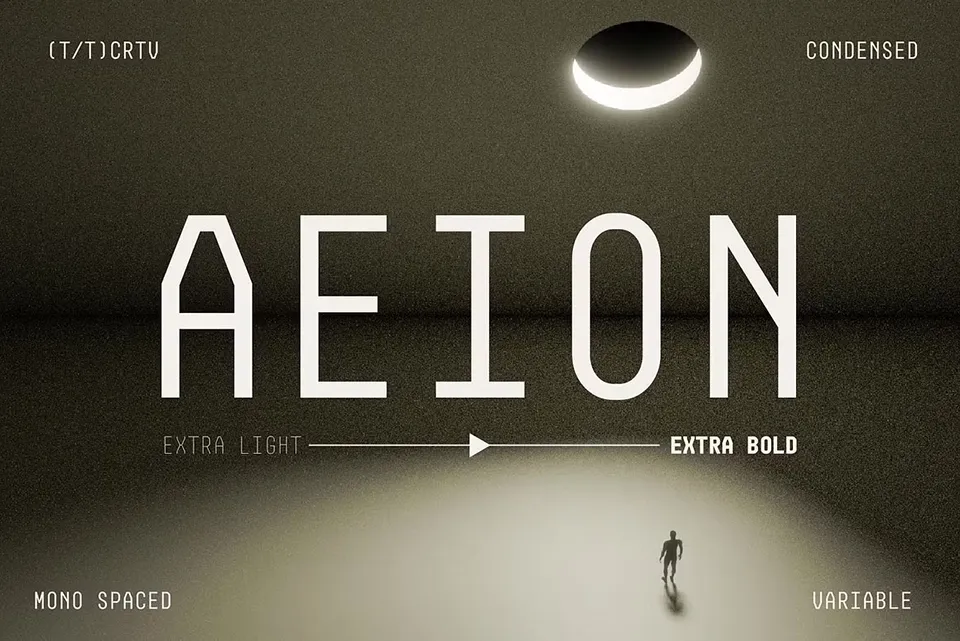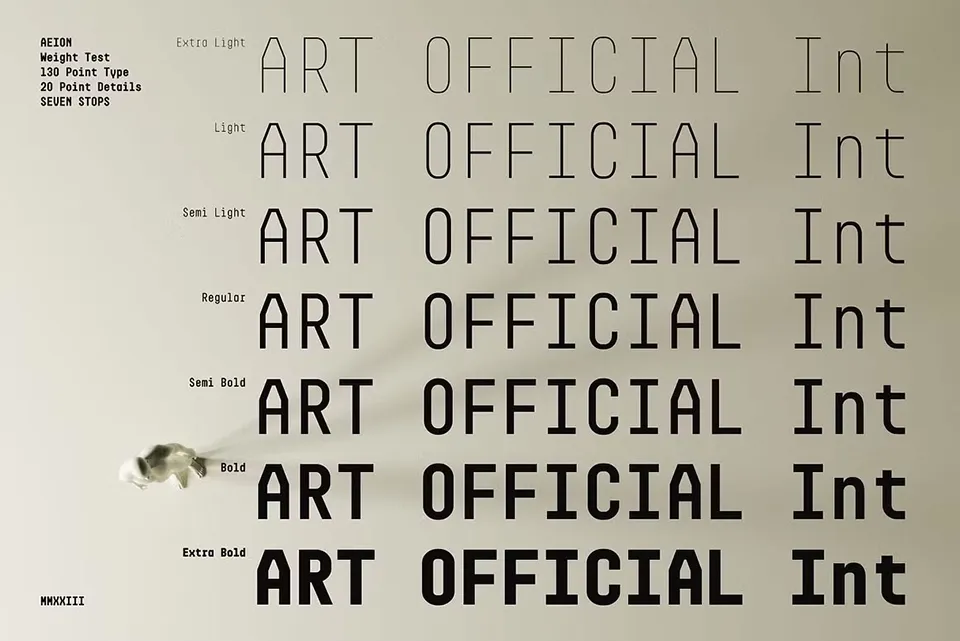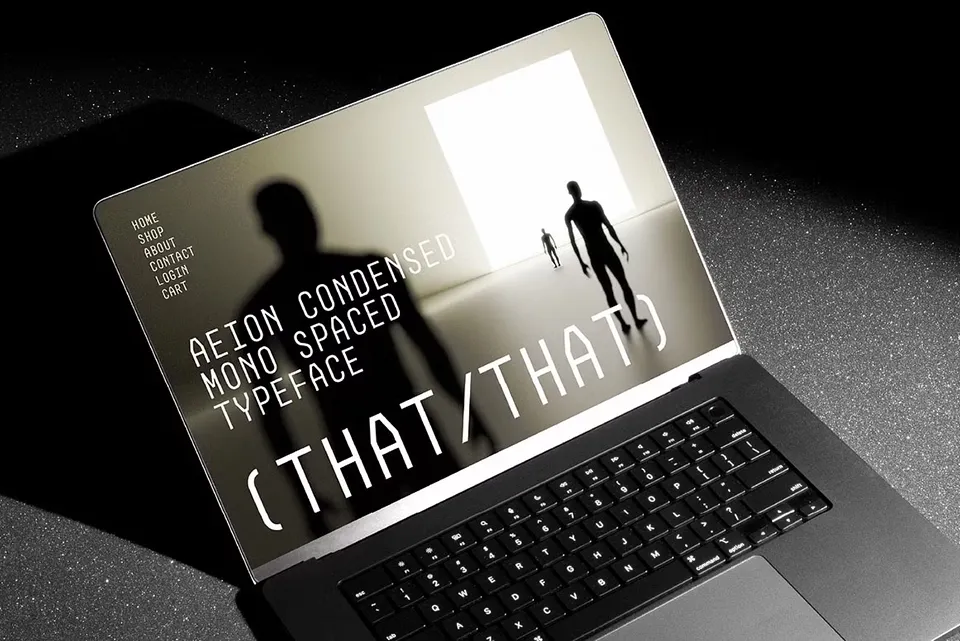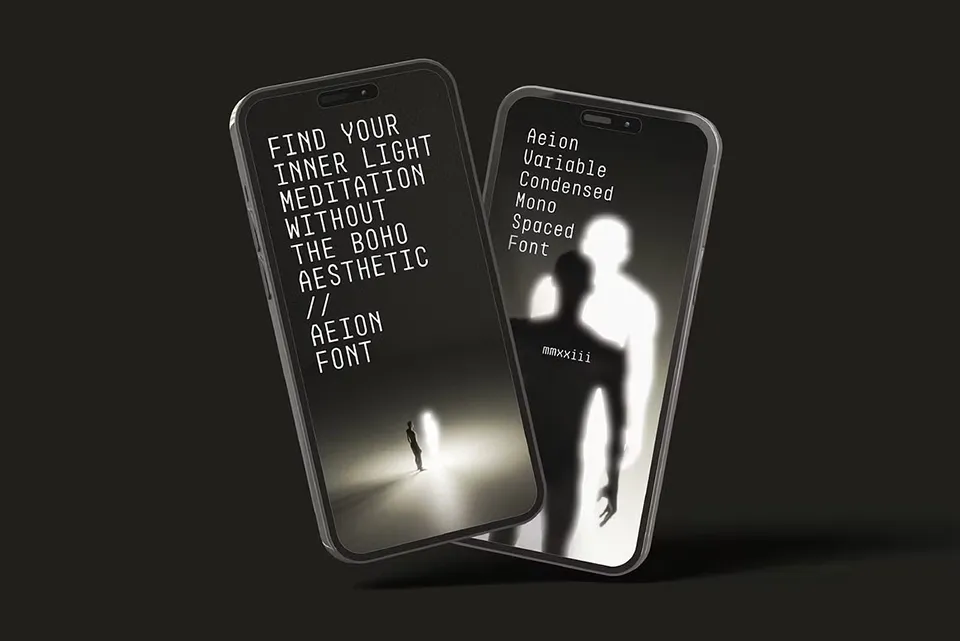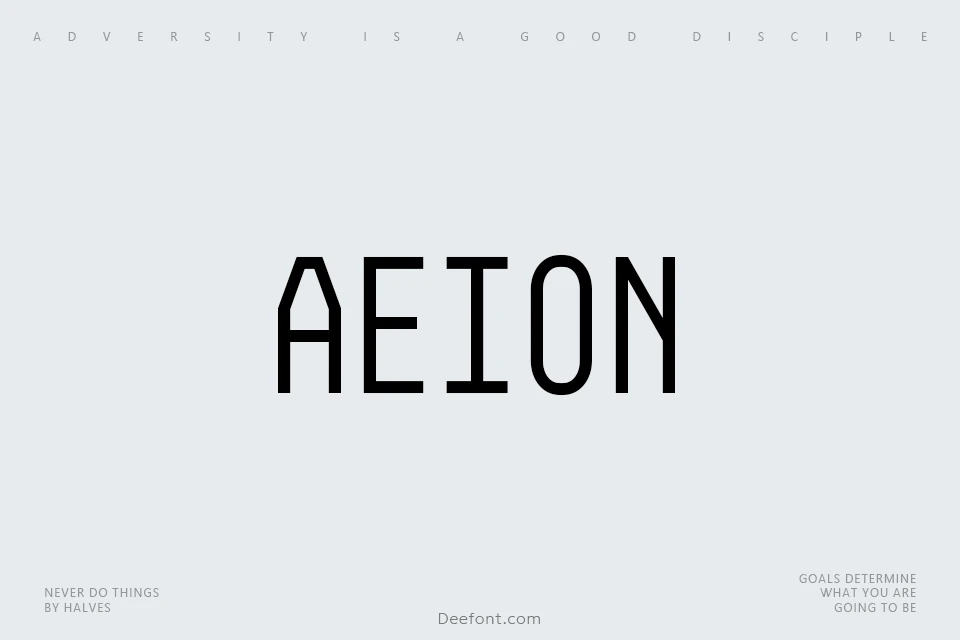
Aeion Font Family
Aeion Font Family is an experimental monospace typeface created by That That Creative, designed with a contemporary approach and a strong tech influence. Its condensed, mono spaced structure comes in 7 weights plus a variable font, blending modern and retro aesthetics. Aeion is energetic and bold, making it ideal for display uses in posters, branding, social media, magazines, and logos. If you appreciate tech-inspired design, Aeion Font Family is a perfect choice for your next creative project.